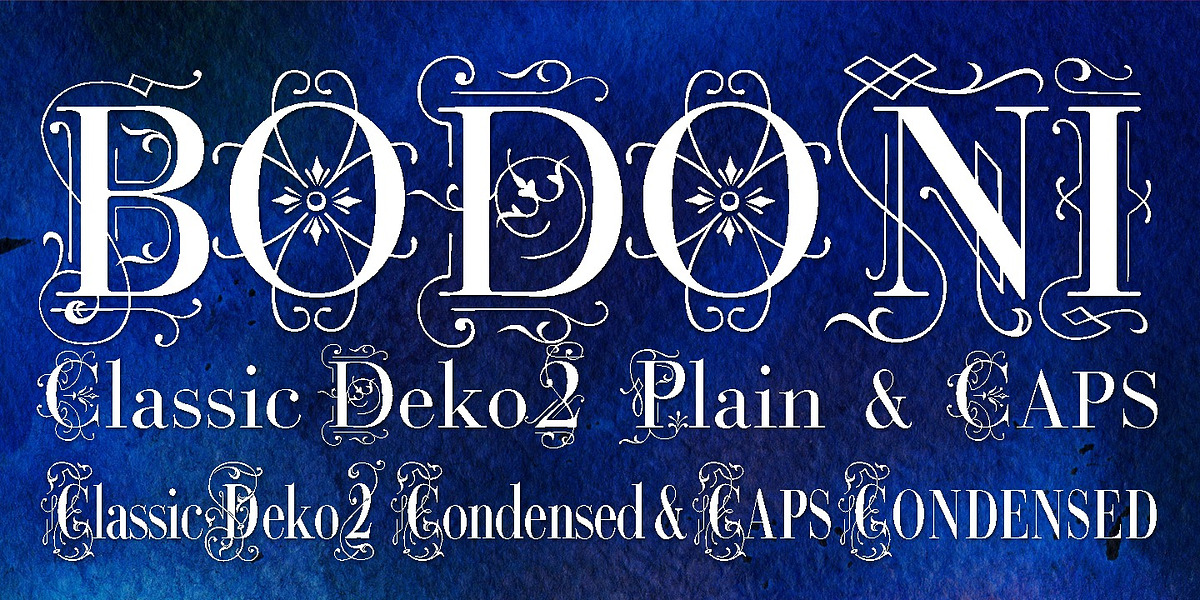
Bodoni Classic Deco Two
This font draws inspiration from classic typographic styles with its condensed form and ornamented details. The 'flare serif' subclassification suggests serifs that extend outwards, possibly in a decorative manner. The emphasis on 'decorated numbers' further points to a visually rich typeface suited for headings, titles, or design elements where an elegant touch is desired.